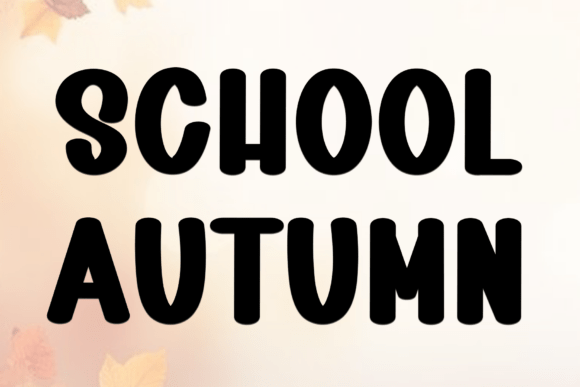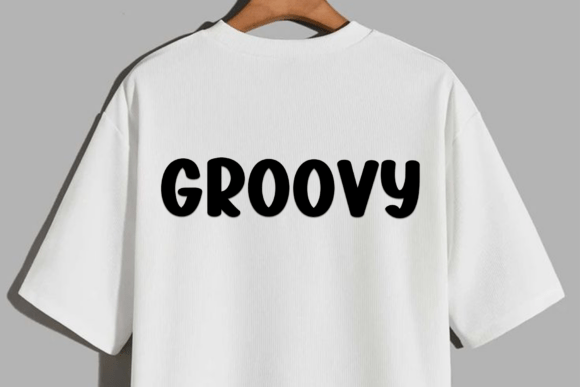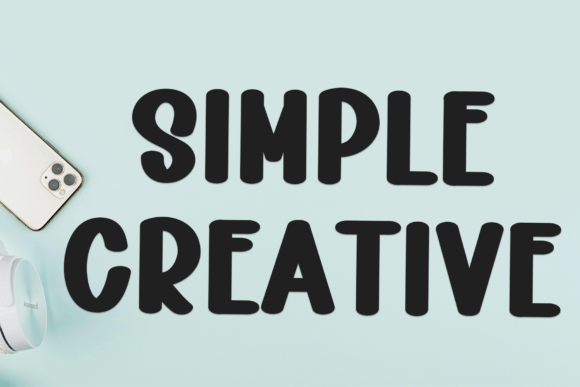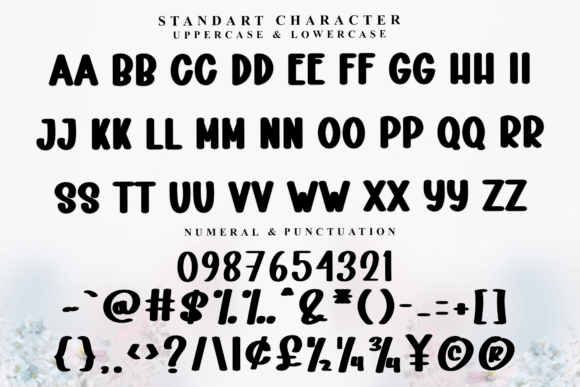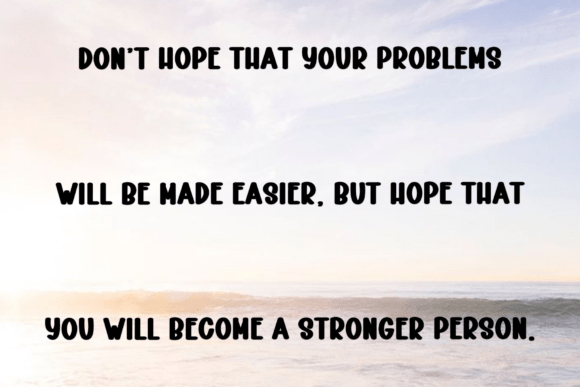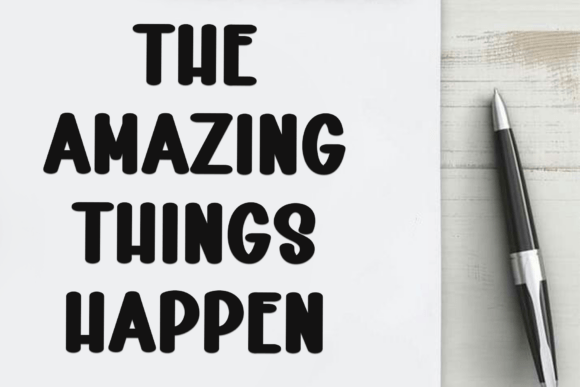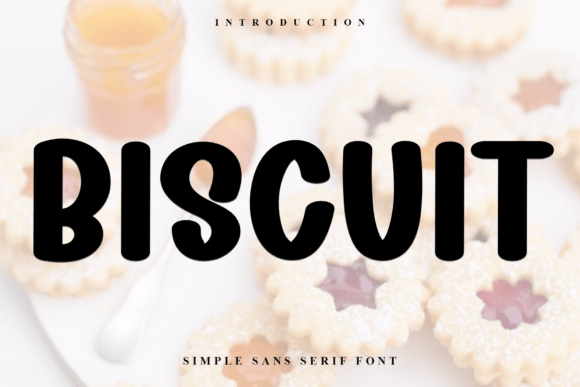
Biscuit Font: The Perfect Treat for Your Design Cravings
Are you tired of using the same old fonts in your designs? Look no further than Biscuit, a simple yet high-impact sans serif font that’s sure to satisfy your design cravings. With its ultra-thick strokes and soft, rounded terminals, Biscuit is the perfect font for any project that needs to feel bold, approachable, and full of life.
The Inspiration Behind Biscuit
Biscuit gets its name from the comforting shape of a fresh-baked treat. The font’s creator was inspired by the warm, inviting feel of a perfectly baked biscuit, and sought to capture that feeling in a font that would be both visually appealing and highly legible. The result is a font that’s perfect for food packaging, children’s brand logos, high-contrast social media headers, and playful advertising.
What Makes Biscuit So Special?
So what sets Biscuit apart from other fonts? Here are just a few of its standout features:
- Ultra-thick strokes: Biscuit’s bold, ultra-thick strokes make it perfect for headlines, titles, and other applications where you want to make a big impact.
- Soft, rounded terminals: The soft, rounded terminals of Biscuit’s letters give the font a friendly, approachable feel that’s perfect for brands that want to connect with their audience.
- High legibility: Despite its bold, eye-catching design, Biscuit is highly legible even at small sizes, making it perfect for use in a variety of applications.
Best Uses for Biscuit
Biscuit is a versatile font that can be used in a wide range of applications, but here are some of the best uses for this amazing font:
- Food packaging: Biscuit’s warm, inviting feel makes it perfect for food packaging, from bakery labels to restaurant menus.
- Children’s brand logos: The playful, approachable feel of Biscuit makes it a great choice for children’s brand logos, from kids’ clothing to educational toys.
- High-contrast social media headers: Biscuit’s bold, eye-catching design makes it perfect for social media headers, where you want to grab your audience’s attention.
- Playful advertising: Whether you’re creating an ad for a new product or service, Biscuit’s fun, playful feel is sure to make your ad stand out.
Tips for Using Biscuit in Your Designs
Here are a few tips for getting the most out of Biscuit in your designs:
- Use it boldly: Biscuit is a bold, eye-catching font, so don’t be afraid to use it boldly in your designs. Whether you’re creating a headline or a social media post, Biscuit is sure to make an impact.
- Pair it with contrasting fonts: To really make Biscuit shine, try pairing it with contrasting fonts that provide a nice visual contrast. A simple sans serif font or a elegant script font can provide a nice contrast to Biscuit’s bold, playful design.
- Experiment with colors: Biscuit looks great in a wide range of colors, so don’t be afraid to experiment and find the perfect color for your design. From bright, bold colors to more muted, pastel shades, Biscuit is sure to look great in any color scheme.
In conclusion, Biscuit is a simple yet high-impact sans serif font that’s perfect for any project that needs to feel bold, approachable, and full of life. With its ultra-thick strokes, soft rounded terminals, and high legibility, Biscuit is the perfect font for food packaging, children’s brand logos, high-contrast social media headers, and playful advertising. So why settle for a boring, generic font when you can satisfy your design cravings with Biscuit?